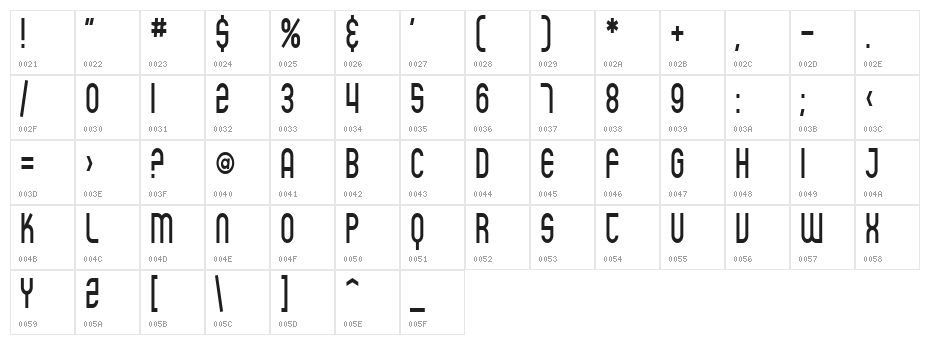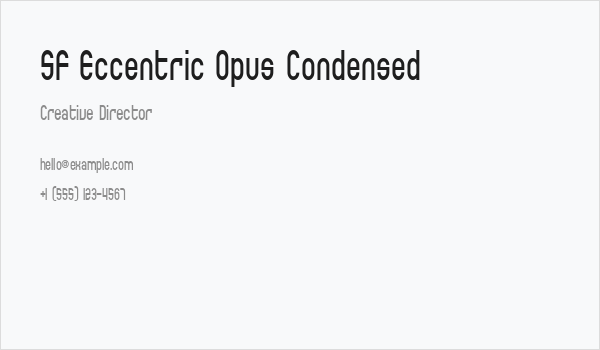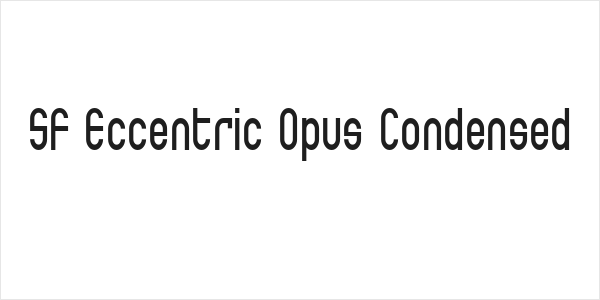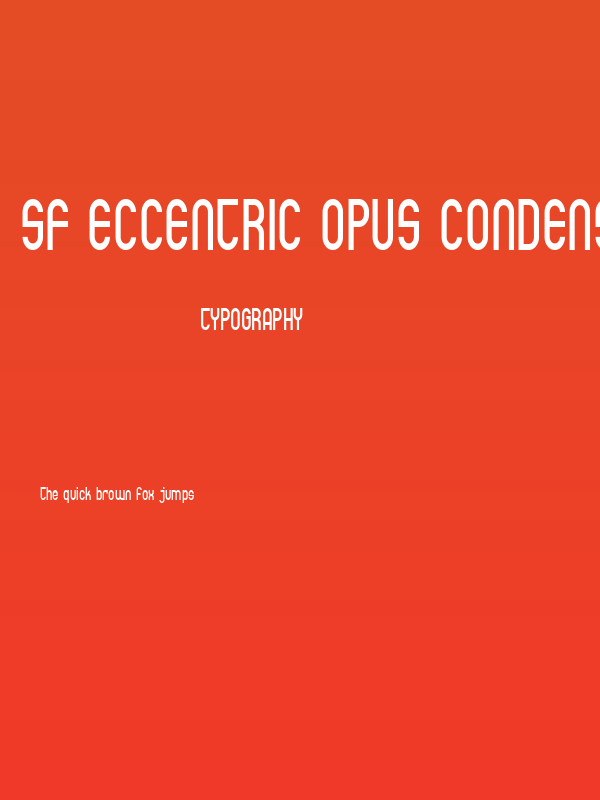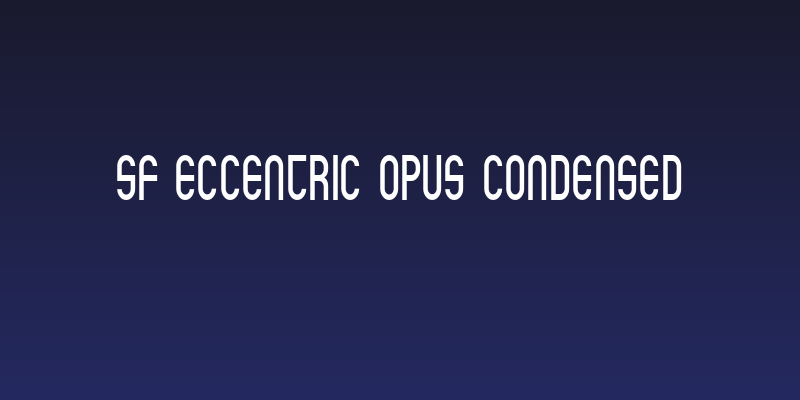
SF Eccentric Opus Condensed Font
SF Eccentric Opus Condensed Description
This font features a unique blend of modern and retro elements, characterized by its condensed and geometric letterforms. The uppercase letters are tall and narrow, with a distinct rounded quality that adds a touch of softness to the overall design. The lowercase letters maintain a similar style, ensuring consistency across the typeface. Numbers are designed with the same condensed structure, providing a cohesive look. Special characters are included, each crafted with the same attention to detail, making this font versatile for various applications. The clean lines and minimalistic approach make it suitable for contemporary designs while retaining a hint of vintage charm.
| Proposed Projects | Ideal for branding, posters, and editorial design where a modern yet retro aesthetic is desired. |